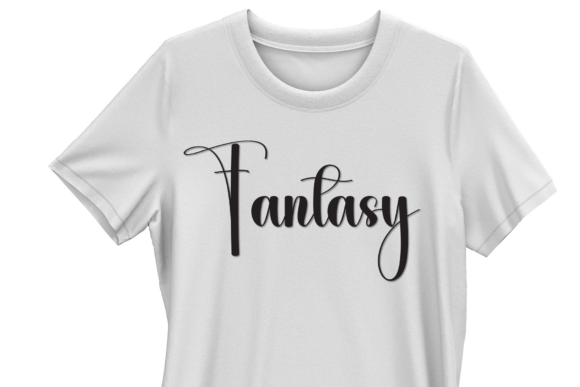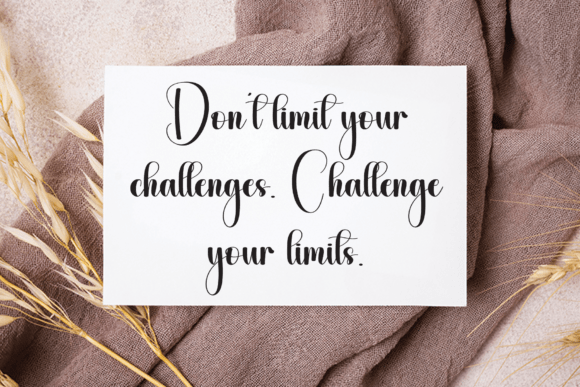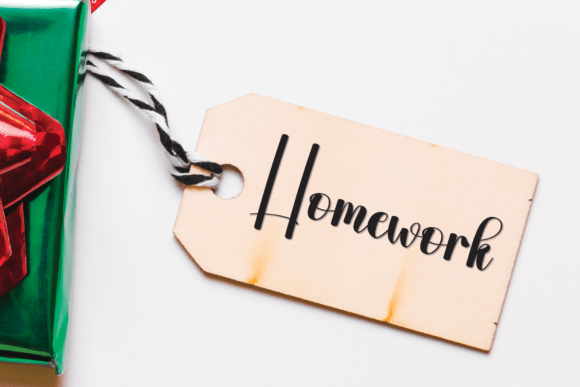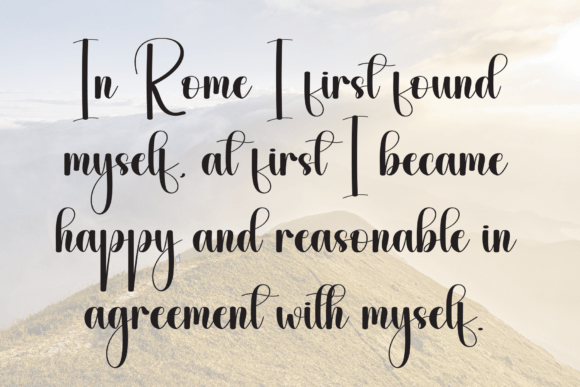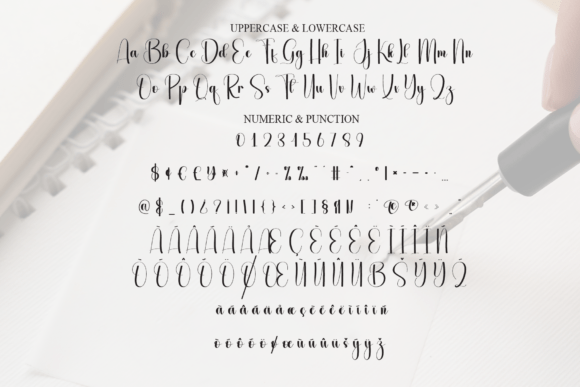
Introducing Autography Font: Elevate Your Designs with Stunning Handwritten Style
Are you a designer, crafter, or creative enthusiast looking for a unique and captivating font to take your projects to the next level? Look no further than Autography Font, the latest addition to the world of typography. Our font is designed to provide you with an extraordinary experience, perfect for a wide range of applications, from wall displays and wedding invitations to social media posts, logos, advertisements, and more.
What Sets Autography Font Apart
Autography Font is a special creative product that boasts a distinctive handwritten style, perfect for adding a touch of elegance and sophistication to your designs. With its beautiful, flowing letters, this font is sure to capture the attention of your audience and leave a lasting impression. Whether you’re working on a personal project or a professional assignment, Autography Font is the perfect choice for anyone seeking a high-quality, versatile font.
Autography Font is an incredibly versatile font, suitable for a wide range of design applications, including:
- Wall displays: Create stunning wall art, quotes, and posters that showcase your creativity.
- Wedding invitations: Add a touch of elegance and romance to your wedding stationery and invitations.
- Social media posts: Elevate your social media game with eye-catching graphics and quotes.
- Logos and branding: Use Autography Font to create unique and memorable logos for your business or personal brand.
- Advertisements: Stand out from the competition with bold, attention-grabbing ads.
- Product packaging: Add a personal touch to your product packaging and make it more recognizable.
- Labels and watermarks: Use Autography Font to create custom labels and watermarks that add a touch of sophistication.
Why Choose Autography Font?
By choosing Autography Font, you’re investing in a high-quality, unique font that will elevate your designs and set you apart from the competition. With its beautiful, handwritten style and versatility, Autography Font is the perfect addition to any designer’s or crafter’s toolkit.
Enjoy the creative freedom and flexibility that Autography Font provides, and take your designs to new heights!